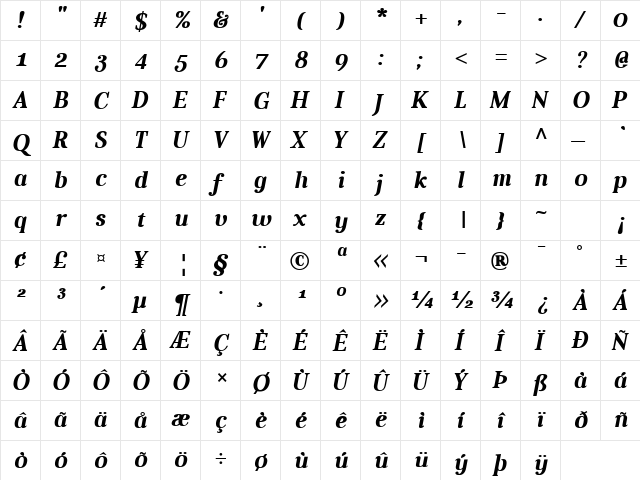
Aver Bold Italic
| Designer | Lauren Thompson |
Design Context for Aver Typeface
Aver offers clean, dependable letterforms without strong stylistic allegiance, making it a practical choice for designers who need flexibility. The slanted form adds forward momentum and visual energy. Its bold stroke weight gives it real presence on the page.
Pro Tip: Try Aver for annotation and caption copy alongside an upright companion — the contrast in angle creates a dynamic but ordered typographic system.